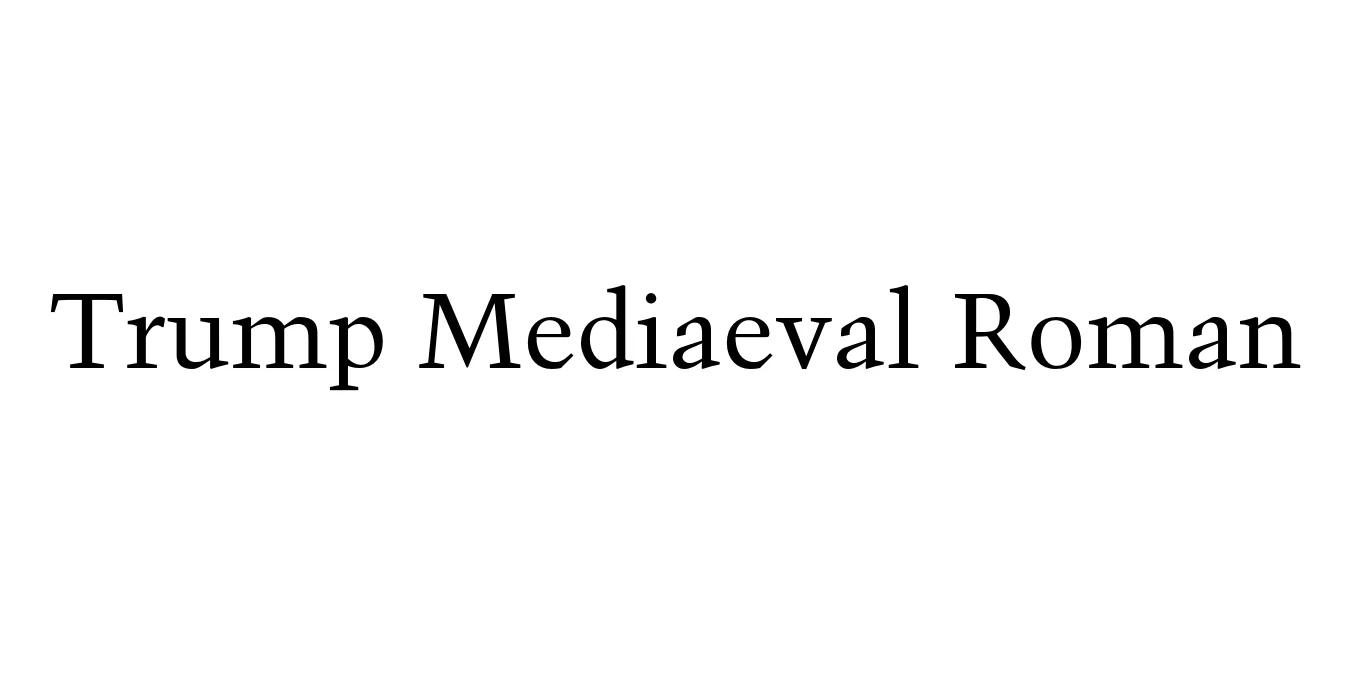
Trump Mediaeval Roman
Designed by Georg Trump
Trump Mediaeval Roman was designed by the prolific German typographer Georg Trump and released in 1954 by the C.E. Weber foundry. Unlike many other mediaeval-style faces that lean heavily on rounded calligraphic strokes, this typeface is characterized by its sharp, angular, and chiseled appearance. It represents a mid-20th-century interpretation of the Venetian and Old-Style traditions, blending historical elegance with a crisp, modern precision that makes it stand out in any typographic layout.
The font is celebrated for its exceptional legibility and robust structure, making it a favorite among book designers and editorial typographers. Its distinct triangular serifs and generous x-height ensure that it remains clear even at smaller point sizes. Trump Mediaeval Roman is often considered one of the finest examples of a transitional serif that bridges the gap between classic humanist forms and the more structured requirements of professional commercial printing.
Trump Mediaeval Roman Best Uses
Ideal for long-form reading in novels and academic texts due to its high legibility.
Perfect for high-end magazines, journals, and newspapers that require a sophisticated tone.
Provides a sense of heritage and authority for corporate identities and luxury brands.